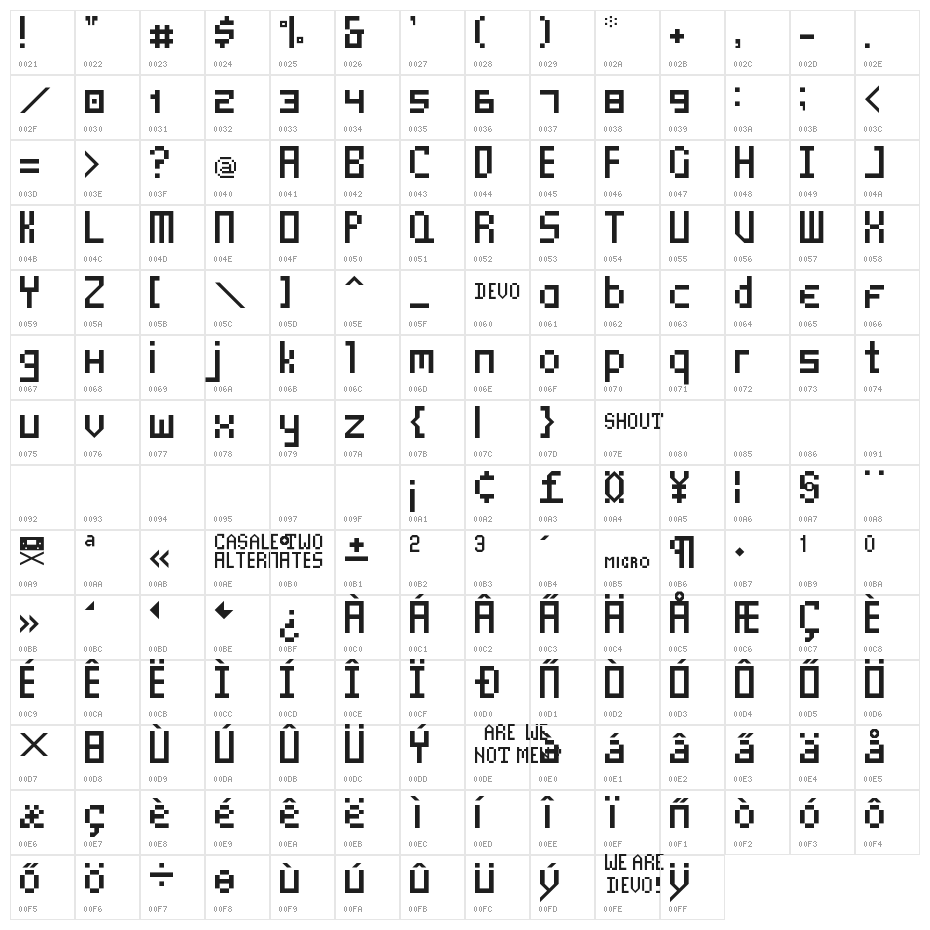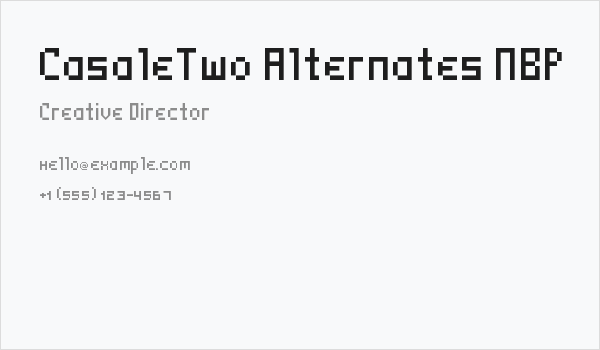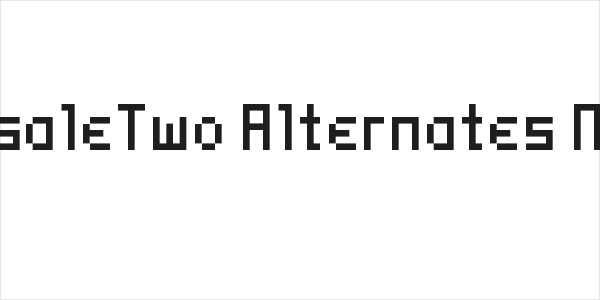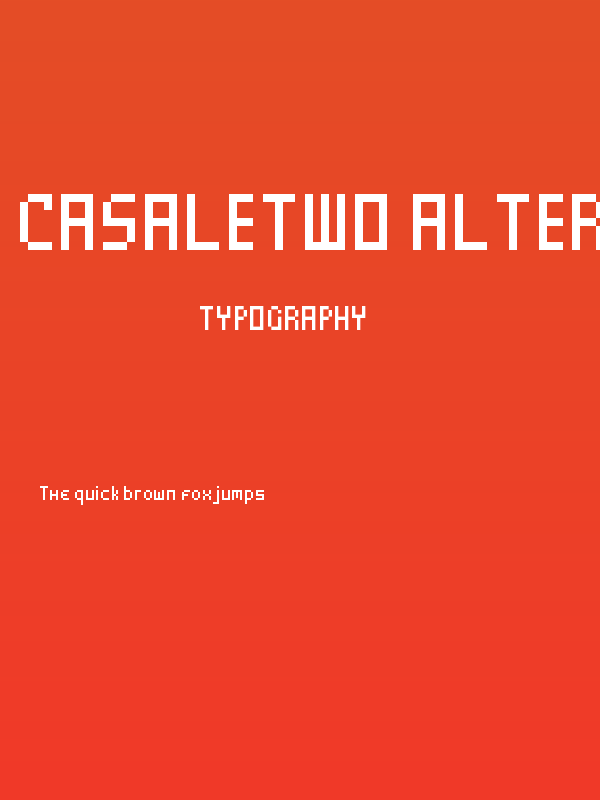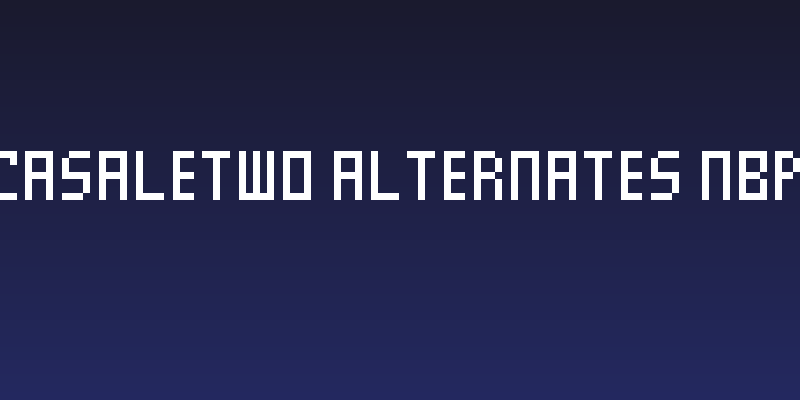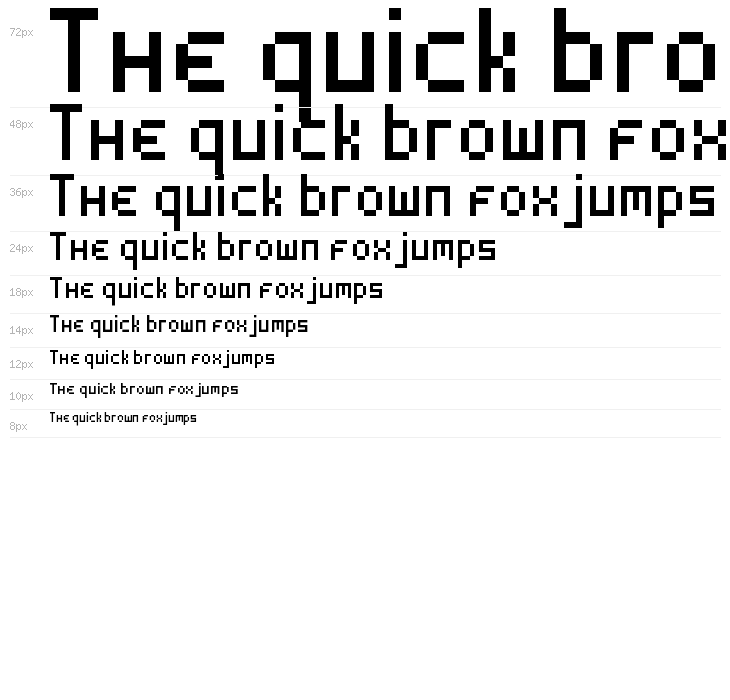
CasaleTwo Alternates NBP Font
CasaleTwo Alternates NBP Description
This font exhibits a bold, geometric style with a distinctly digital and pixelated appearance. Each character is constructed with sharp, angular lines and consistent stroke widths, giving it a blocky and structured look. The uppercase and lowercase letters maintain a uniform height, contributing to a cohesive visual rhythm. The numerals and special characters follow the same design principles, ensuring a seamless integration across all text elements. This font's design is reminiscent of early digital displays, making it ideal for projects that require a retro or tech-inspired aesthetic.
| Overall Style | Retro, Digital |
| Use Case | Headlines, Logos, Digital displays |
| Proposed Projects | Ideal for video game design, tech-themed posters, digital art projects, and retro-inspired branding. |